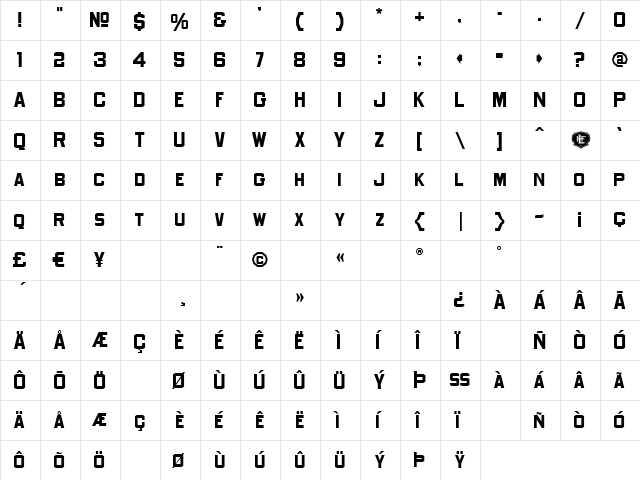
LHF Old Block RegBold Regular
Design Context for LHF Old Block RegBold Typeface
LHF Old Block RegBold is a composed and adaptable typeface that performs quietly and consistently across a wide range of design contexts. Its bold stroke weight gives it real presence on the page.